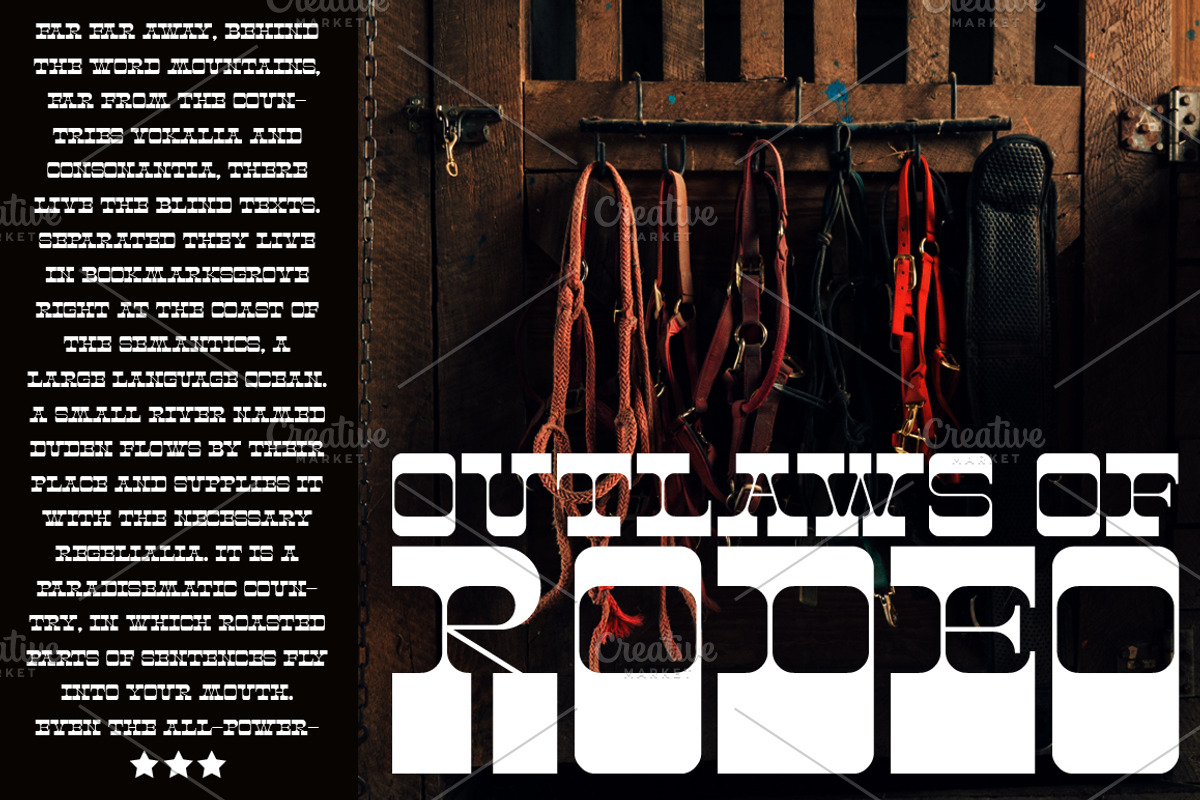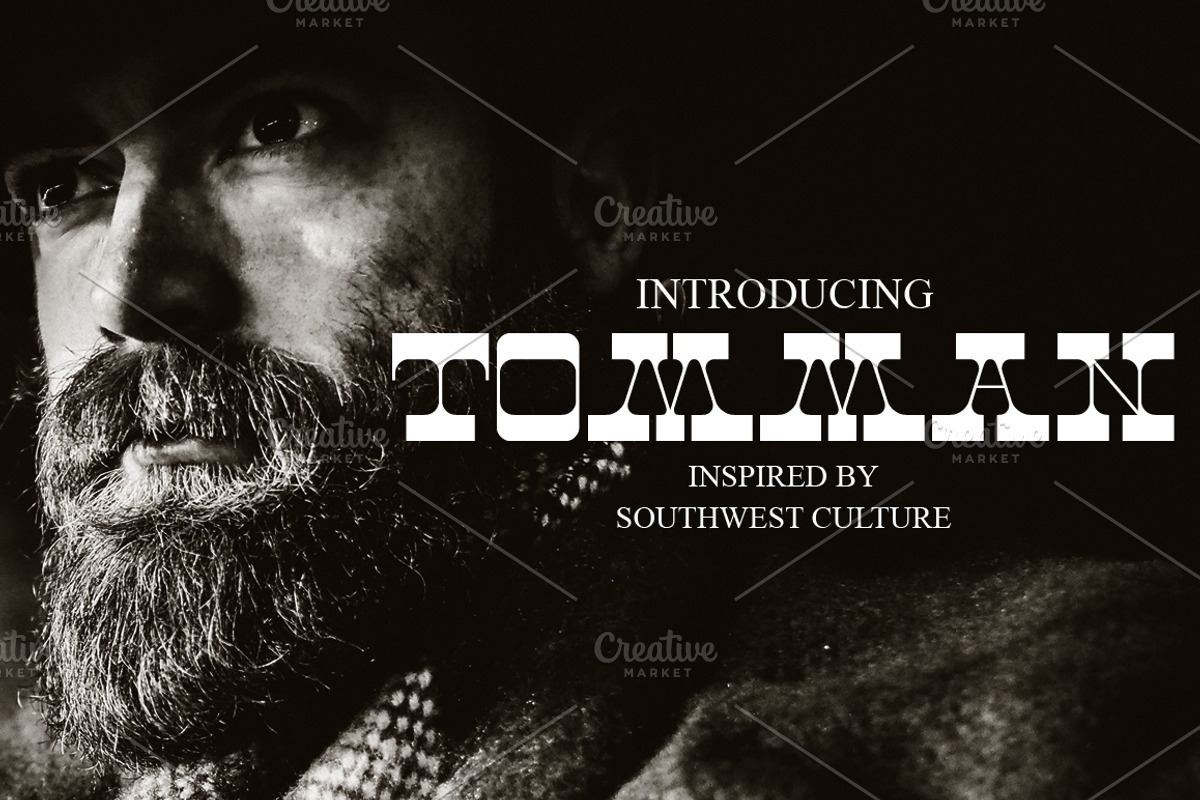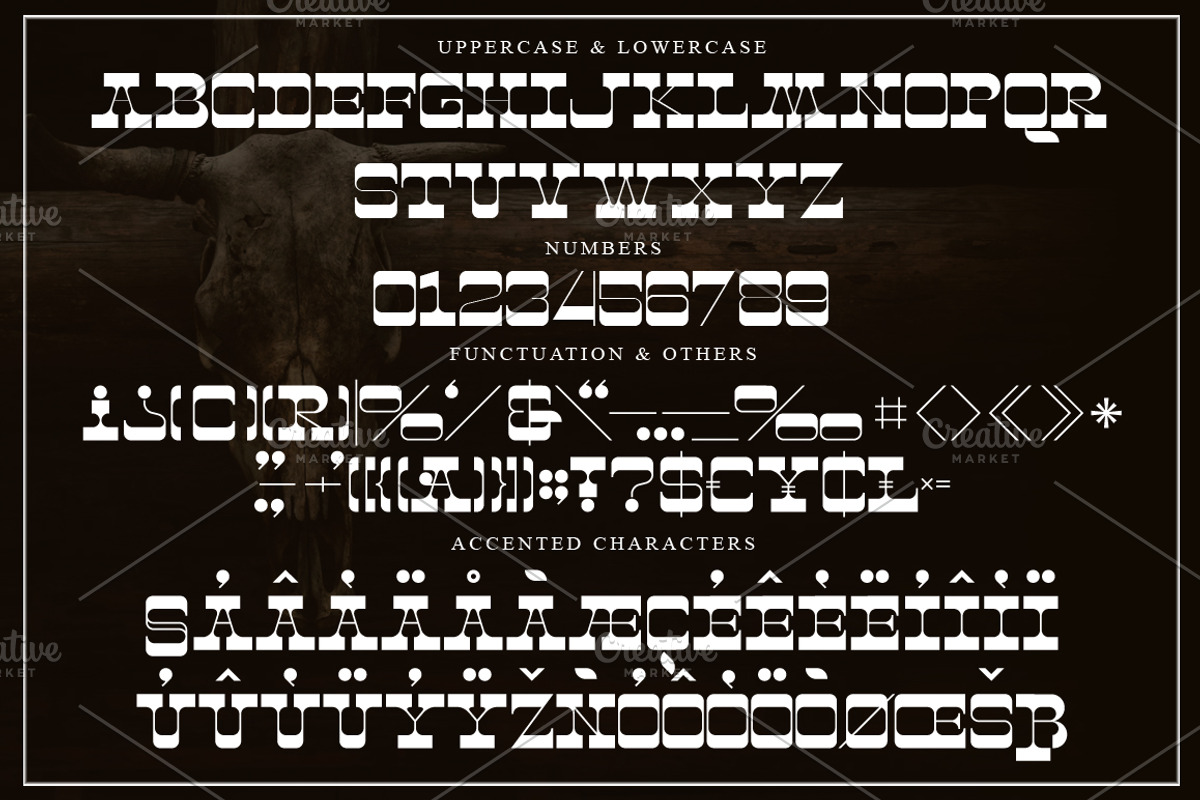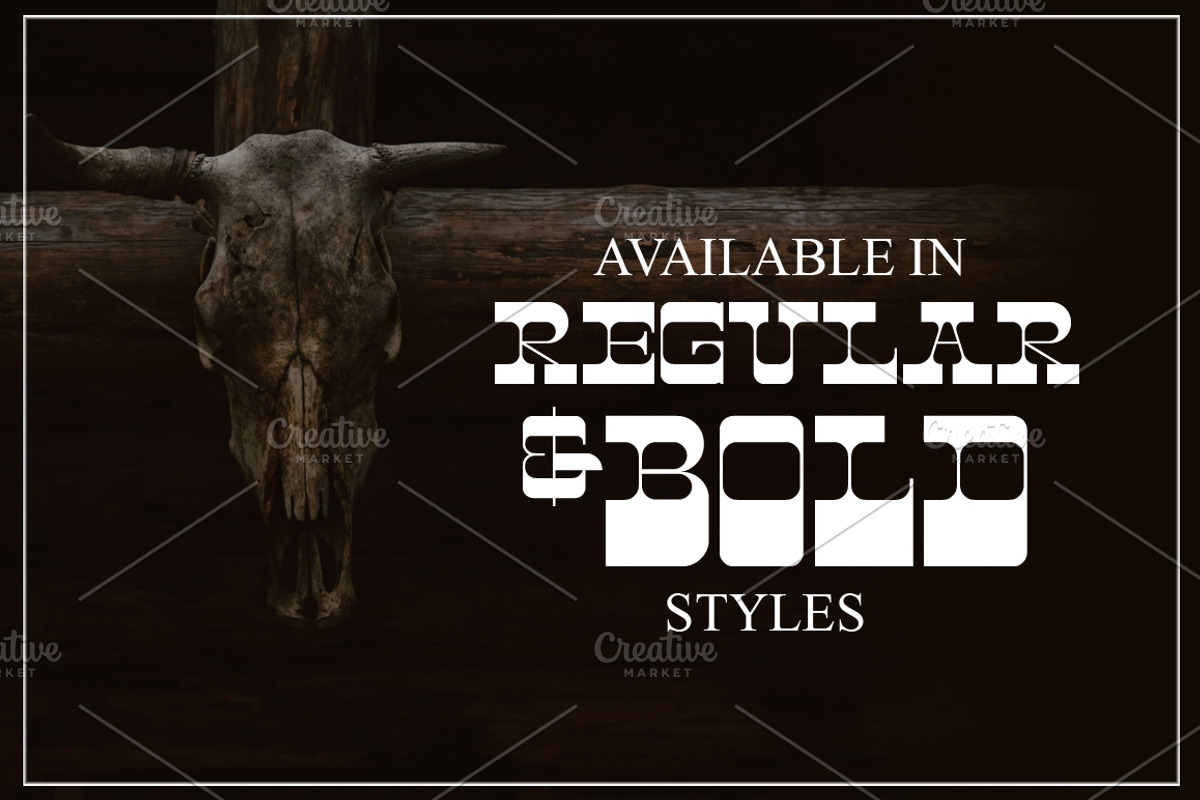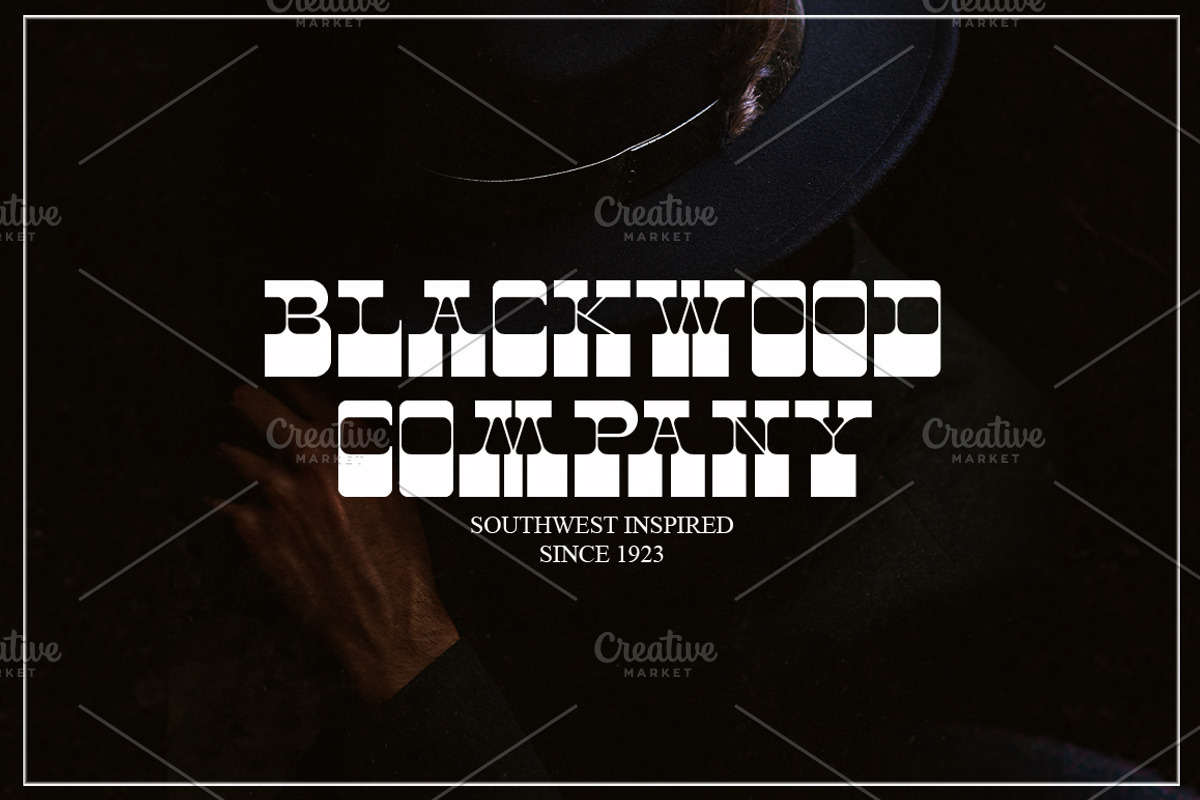
Tomman
A new Display font called Tomman inspired by southwest culture. Tomman comes in both Regular and Bold styles. Tomman is perfect for logo, quote, apparel and other creative applications.